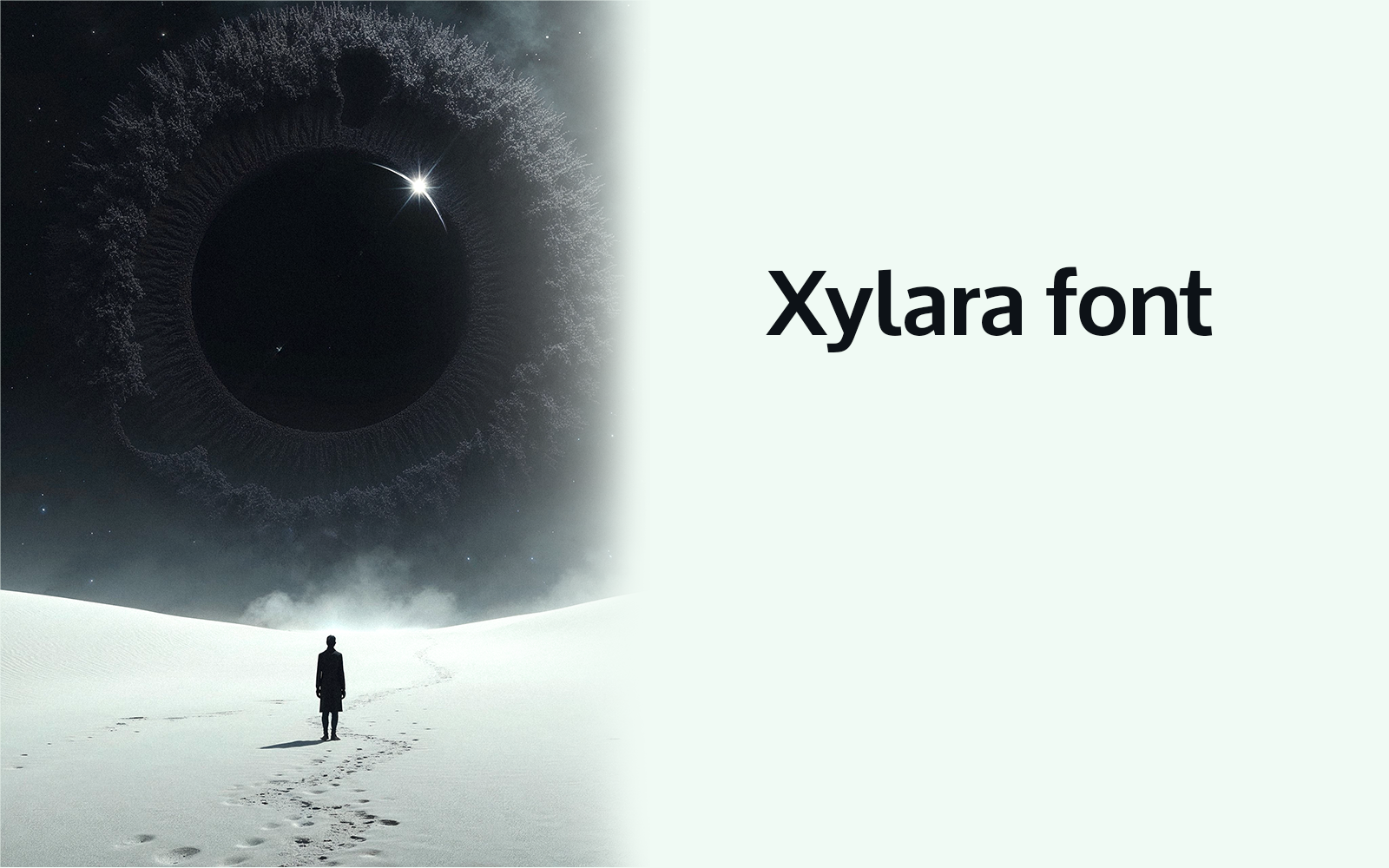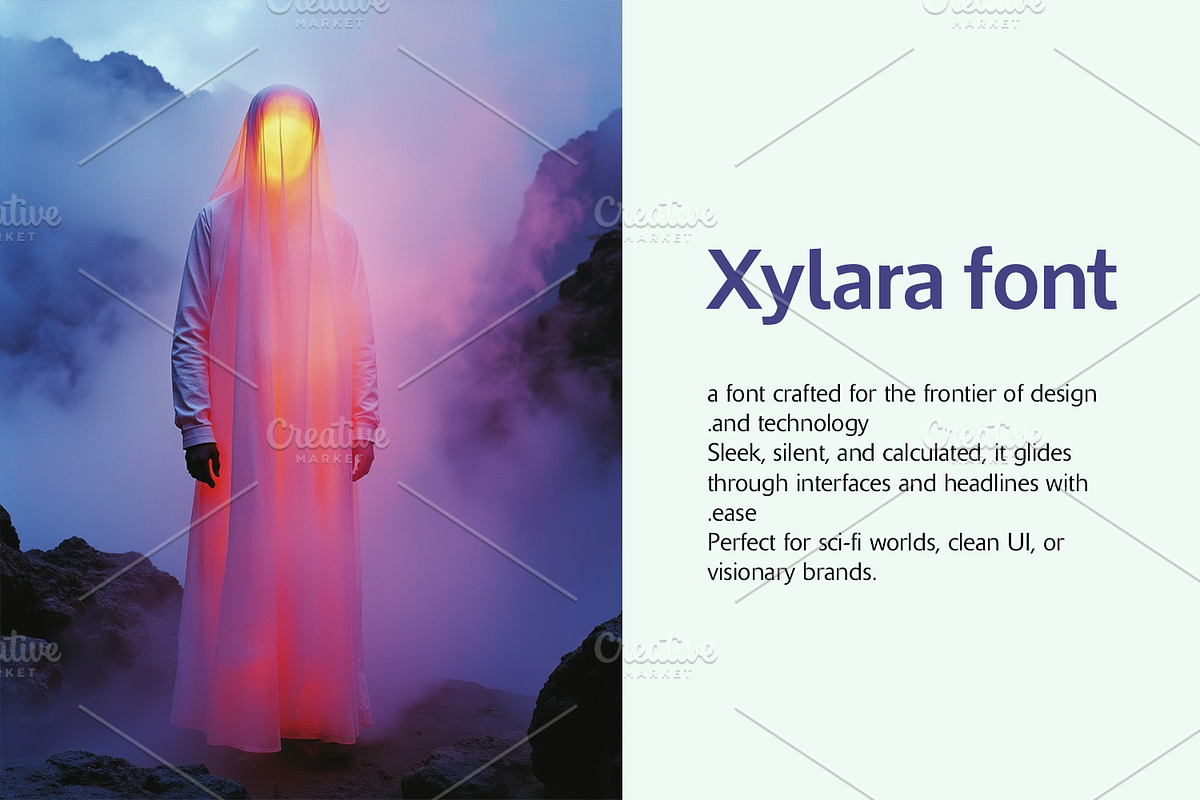
Say hello to Xylara—a font crafted for the frontier of design and technology.
Sleek, silent, and calculated, it glides through interfaces and headlines with ease.
Perfect for sci-fi worlds, clean UI, or visionary brands.
Built with clarity and lightness in every curve.
Xylara: The future, rendered in type.